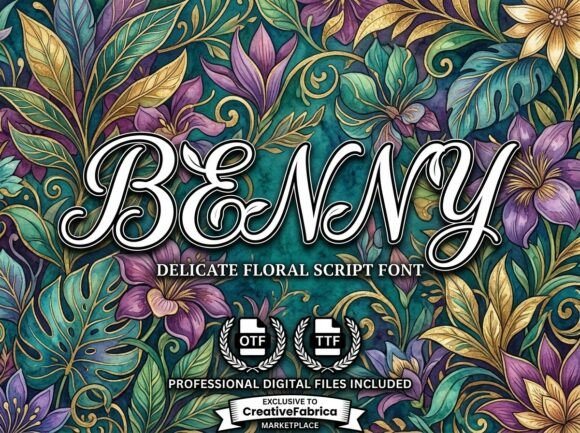
The Ultimate Display Font: Unleashing the Power of Benny Font
I’ll never forget the design project that led me to discover Benny Font. I was working on a luxury packaging project for a high-end fashion brand, and I needed a font that would make a statement. I spent hours scouring the internet for the perfect font, but nothing seemed quite right. That was until I stumbled upon Benny Font. Its unique artistic flourishes and commanding visual personality immediately caught my attention. I knew I had found the perfect fit.
- ✅ Unique and artistic design that makes a statement
- ✅ High-end, polished finish perfect for luxury packaging and editorial layouts
- ✅ Advanced OpenType features for professional designers
- ⚠️ Benny Font is an all-caps display typeface, which may limit its use for body text
- ⚠️ Some users may find the font’s unique design elements overwhelming or distracting
The Story Behind Benny Font
Benny Font was designed with the creative rebel in mind. Its unique artistic flourishes and commanding visual personality make it perfect for designers who refuse to blend in. According to its creators, Benny Font was inspired by the avant-garde art movements of the 20th century, with a dash of modern sophistication.
| Font Name | Benny Font |
| Author | Angel_Srapix |
Q: Is Benny Font suitable for body text?
A: No, Benny Font is an all-caps display typeface and is best suited for headlines and titles.